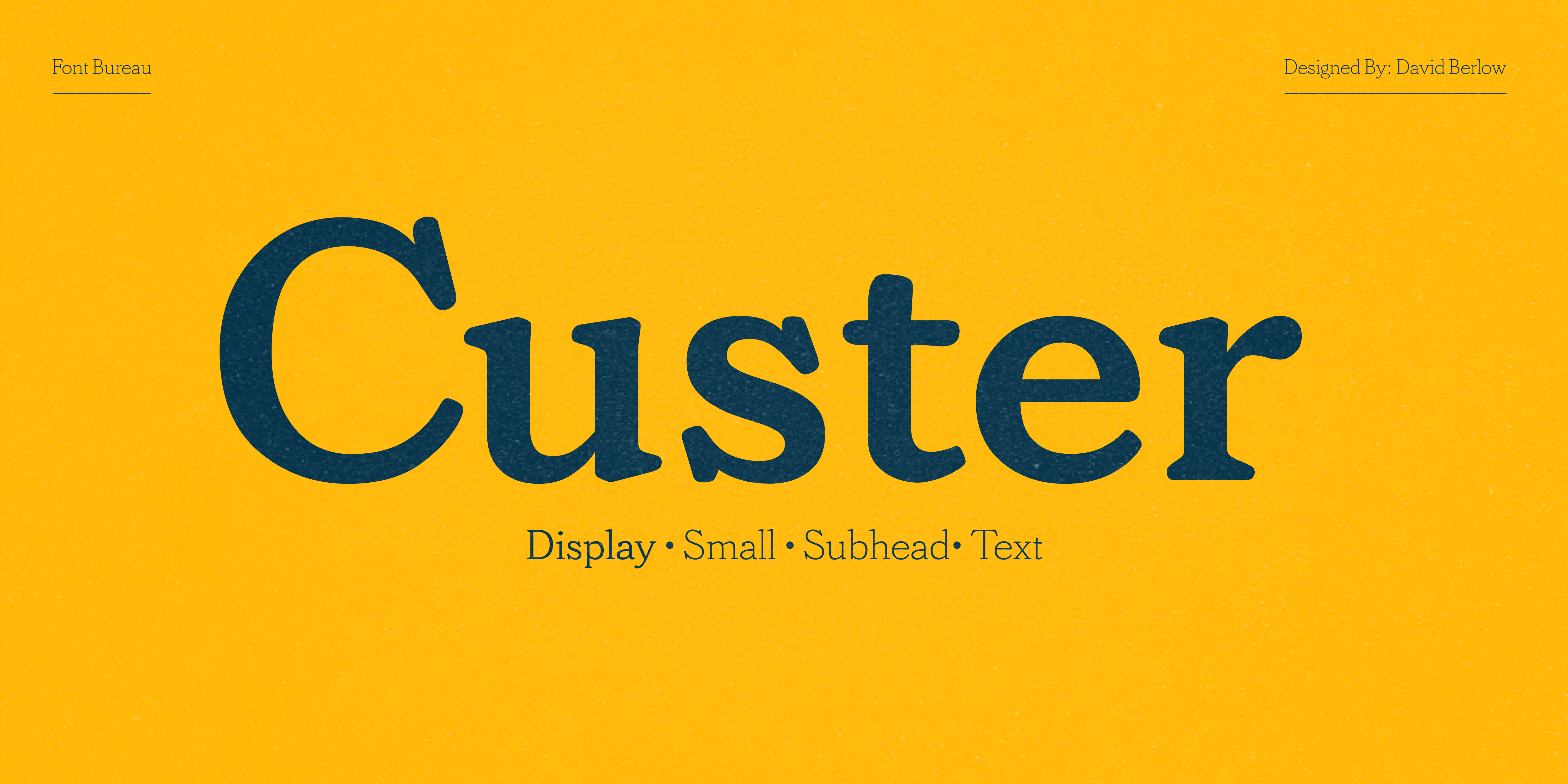
Custer Font is perfect for western movie titles, frontier-themed restaurants, cowboy merchandise designs, historical museum exhibits, rodeo event promotions, rustic lodge branding, adventure tourism marketing, and vintage americana projects.
Custer Font is exciting because it embodies the rugged spirit and adventurous heritage of the American frontier through its bold, weathered character design that evokes the untamed wilderness and pioneering courage of the Old West. Its authentic styling and powerful presence make it the perfect choice for brands that want to communicate strength, adventure, and the enduring legacy of American frontier culture.
The Custer Font family includes multiple frontier-inspired variations: Custer Regular, Custer Bold, Custer Condensed, Custer Distressed, Custer Outline, and Custer Shadow, along with western decorative elements and frontier symbols, providing designers with comprehensive tools for creating authentic Wild West and frontier-themed brand experiences.
When exploring frontier typography solutions, Custer Font Free Download stands out as the ultimate choice for designers working on western heritage and adventure-themed projects. This commanding typeface captures the essence of American frontier history while offering the versatility needed for modern entertainment and tourism marketing. The font's rugged character and historical resonance create immediate connections with audiences who appreciate western heritage and outdoor adventure experiences.
Creative professionals consistently rely on Custer Font for projects requiring authentic western appeal and powerful visual impact. Its expertly crafted letterforms feature frontier influences that work exceptionally well in both large-scale outdoor signage and intimate product packaging applications. The font's ability to convey courage and tradition while maintaining excellent readability makes it invaluable for comprehensive brand identity systems in the entertainment, tourism, and authentic western product sectors.
Whether you're developing western entertainment venues, creating frontier tourism promotions, or designing heritage celebration materials, Custer Font delivers the authentic frontier character and adventurous appeal that resonates with audiences seeking genuine American western experiences. Its historical significance and bold design ensure your projects capture the pioneering spirit of the American West while maintaining professional quality standards that attract modern adventure seekers and history enthusiasts.